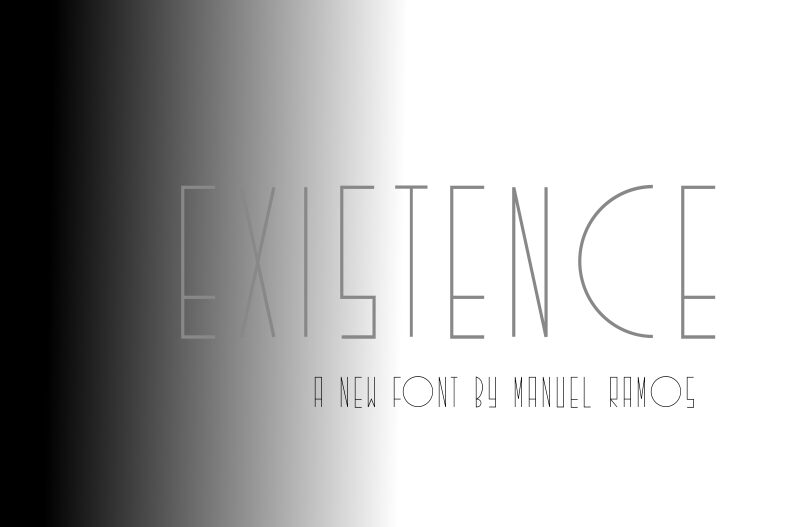
Existence
Existence font designed by Asep Rendi is a bold modern gothic font that captures the very essence of dramatic and ornate typographic ornaments. The typeface of medieval influences has a majestic appearance with both historical and stylish appearances which even professionals will find interesting. Make use of its creative design to enrich various professional and personal art projects.
Use this font in packaging, labels, titles, headlines, advertisements, social media posts, posters, apparel designs, branding projects, publications or magazines.